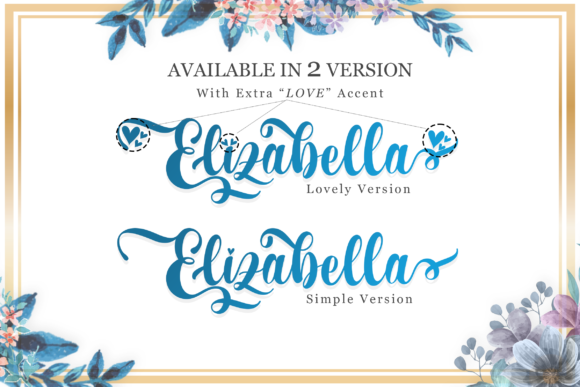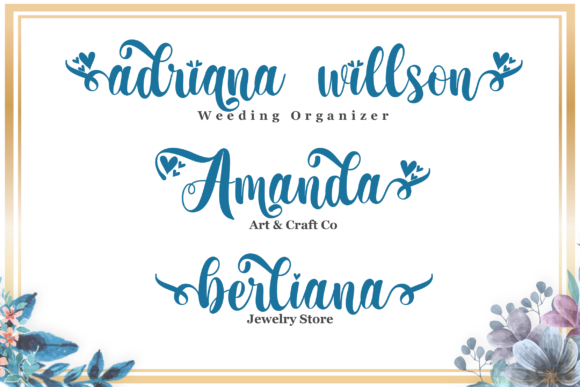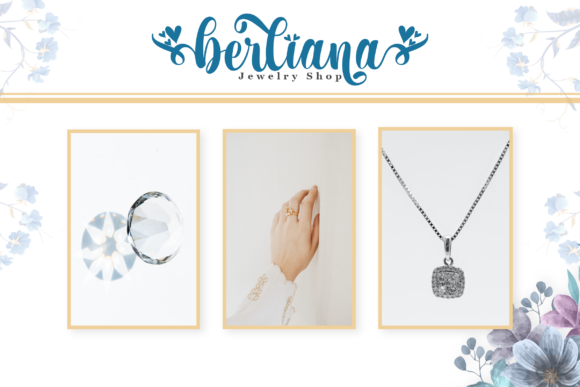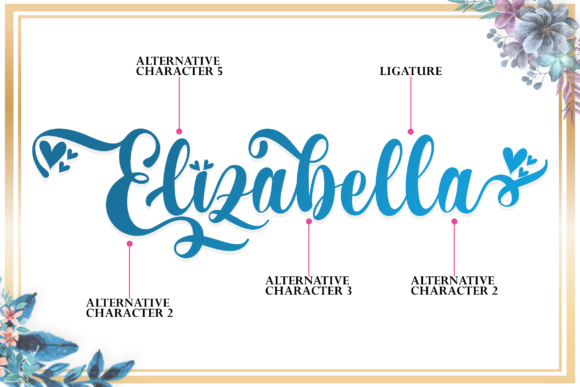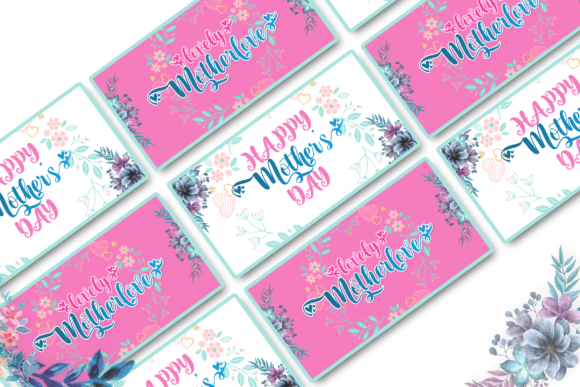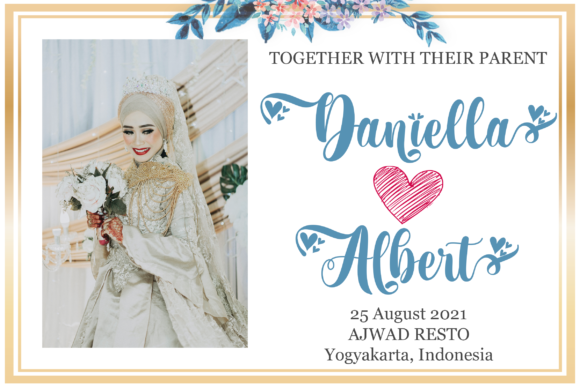
Introducing Elizabella Font: A Dazzling Script Font for Your Creative Projects
Are you a designer, crafter, or DIY enthusiast looking for a unique and elegant script font to elevate your creative projects? Look no further than Elizabella Font! This stunning script font is designed to add a touch of sophistication and glamour to any design, from wedding invitations and party decor to branding and marketing materials.
What Makes Elizabella Font So Special?
Elizabella Font is a meticulously crafted script font that boasts a high level of detail and refinement. Its elegant lines, flowing curves, and intricate swashes make it perfect for designs that require a touch of luxury and sophistication. Whether you’re creating a wedding invitation, a logo, or a social media graphic, Elizabella Font is sure to impress.
PUA Encoding for Easy Access to Glyphs and Swashes
One of the standout features of Elizabella Font is its PUA (Private Use Area) encoding. This means that you can access all the glyphs and swashes with ease, giving you maximum flexibility and creative control over your designs. With Elizabella Font, you can effortlessly add flourishes, ligatures, and other decorative elements to your text, taking your designs to the next level.
Perfect for Designers, Crafters, and DIY Enthusiasts
Elizabella Font is an ideal choice for designers, crafters, and DIY enthusiasts who want to add a professional touch to their creative projects. Whether you’re a seasoned designer or a beginner, this font is easy to use and versatile enough to work with a wide range of design software, including Adobe Illustrator, Canva, and more.
Use Elizabella Font for:
- Wedding invitations and party decor
- Branding and marketing materials
- Logos and business cards
- Signs and banners
- Stationery and greeting cards
Tips for Using Elizabella Font Effectively
To get the most out of Elizabella Font, here are a few tips to keep in mind:
- Use it as a headline font to add a touch of elegance and sophistication to your designs.
- Pair it with a simple sans-serif font for body text to create a striking contrast.
- Don’t be afraid to get creative and add your own flourishes and swashes to make your designs truly unique.
In conclusion, Elizabella Font is a dazzling script font that is sure to elevate your creative projects to new heights. With its elegant lines, flowing curves, and intricate swashes, this font is perfect for designers, crafters, and DIY enthusiasts who want to add a touch of sophistication and glamour to their designs. So why wait? Download Elizabella Font today and start creating stunning designs that will leave a lasting impression!
Whether you’re a seasoned designer or just starting out, Elizabella Font is a must-have addition to your font collection. So go ahead, get creative, and see what amazing designs you can create with Elizabella Font!